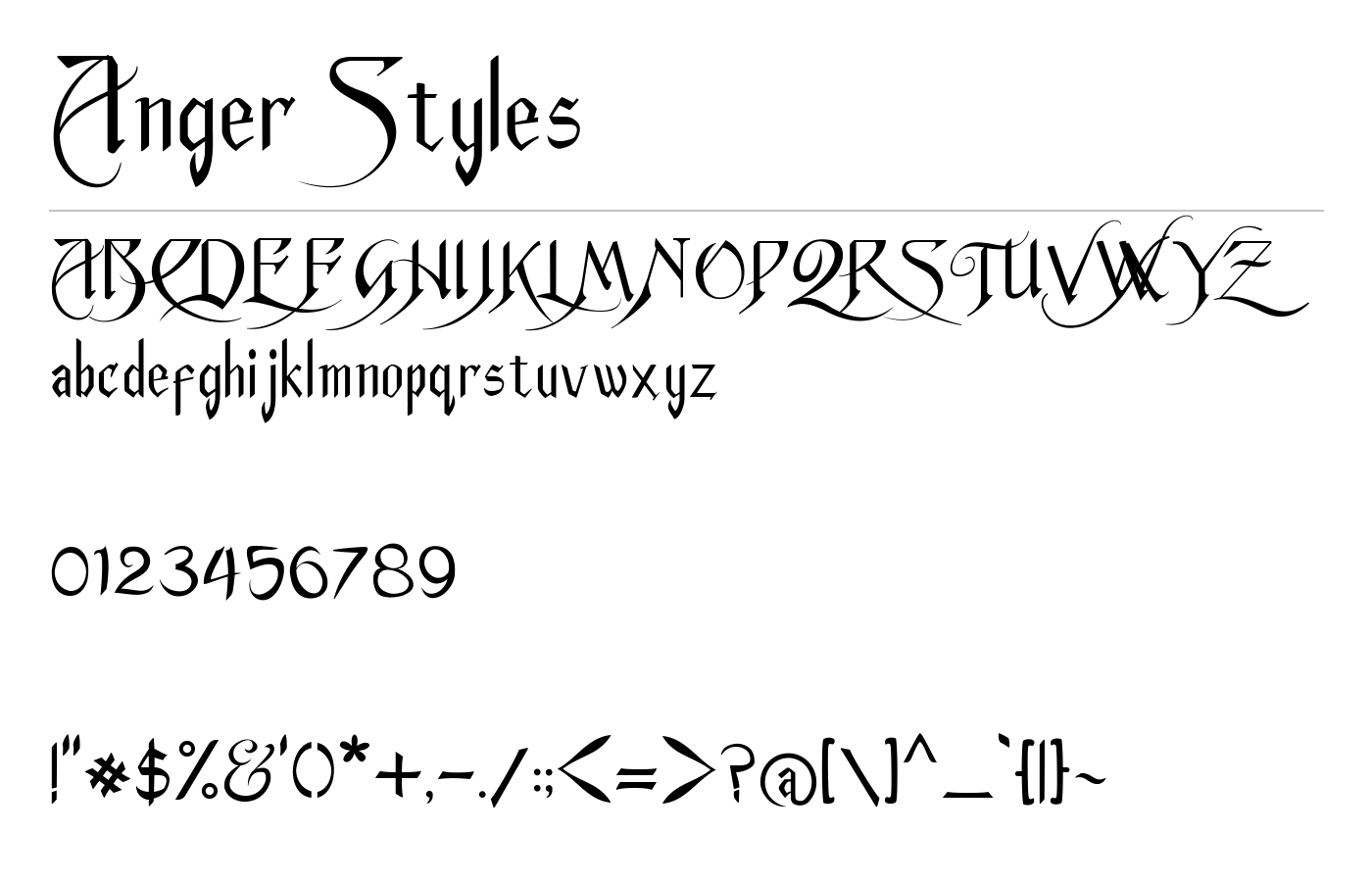
Anger Styles is a distinctive blackletter-inspired serif font with high contrast strokes and elegant, sharp flourishes that give it a gothic and dramatic feel. Its tall, narrow letterforms and ornate details make it perfect for creating a vintage, mysterious, or medieval atmosphere, ideal for use in logos, headlines, and decorative projects where a strong, artistic statement is desired. This font works well in contexts needing a touch of classic elegance combined with a bold, expressive personality.
Anger Styles Font
About Anger Styles Font